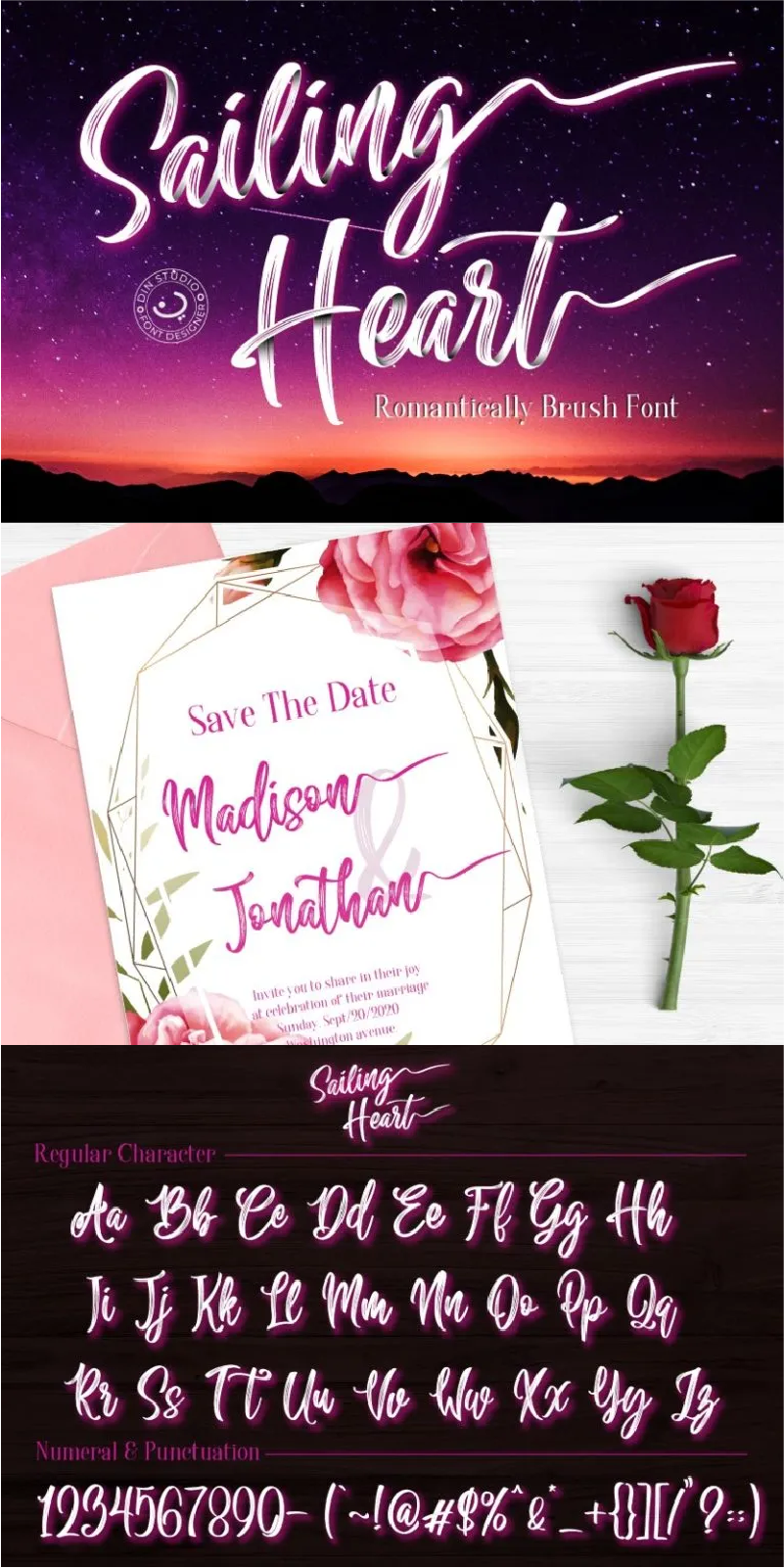
Sailing Heart Font
About Sailing Heart
Sailing Heart is a beautiful script font made with natural brush. The texture from the brush font will make your design more beautiful and powerful. This font is suitable for any designs, like brandings, quotes, wedding invitations, lettering projects, etc. See the previews above to get some inspiration on how you can use them. Happy designing!
-Many Alternates (lowercase)
-Numerals and Punctuations (OpenType Standard)